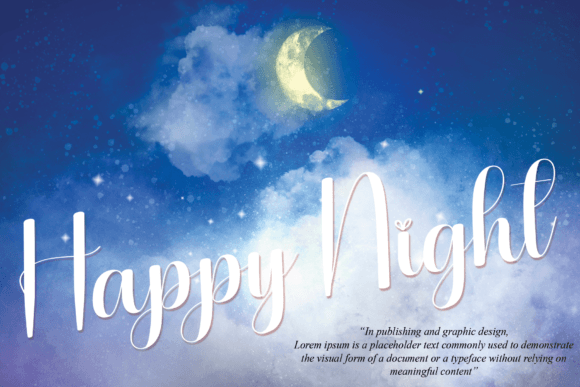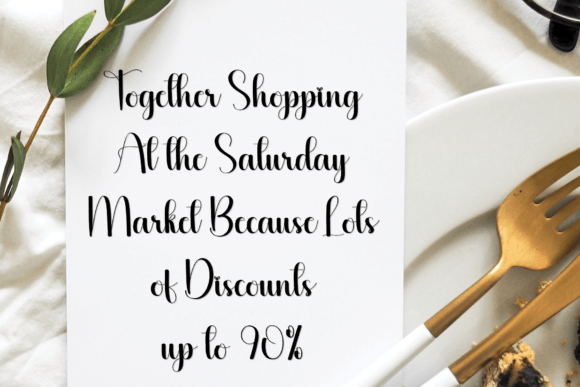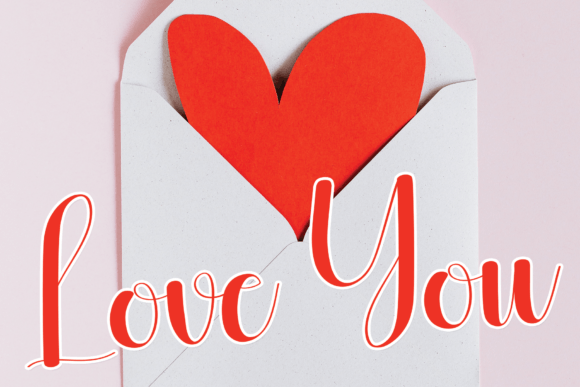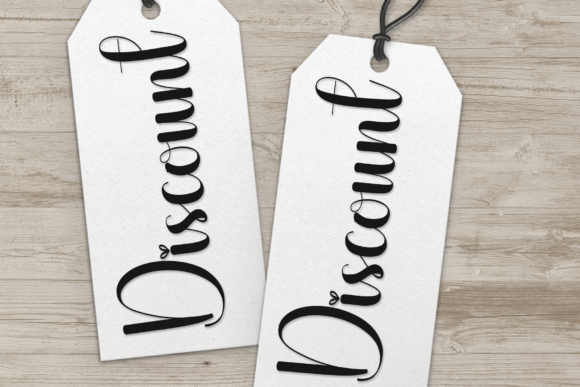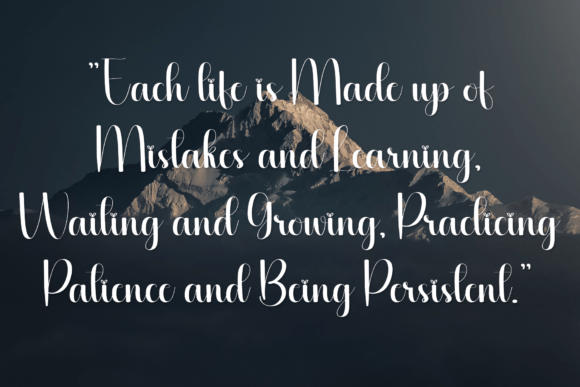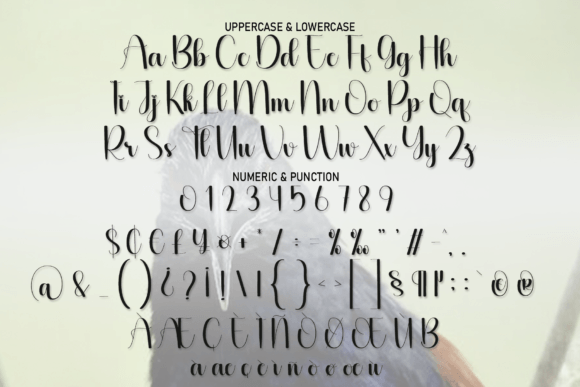
Introducing Angry Font: The Sweet and Cursive Handwritten Font for Elegant Designs
Are you tired of using the same old fonts for your design projects? Look no further! Angry Font is a beautiful, sweet, and cursive handwritten font that will add a touch of elegance and whimsy to your designs. This gentle font is perfect for designers and crafters who want to create stunning visuals that exude joy and romance.
What Makes Angry Font Special?
Angry Font is a versatile font that can be used for a wide range of design ideas. Its cursive and handwritten style gives it a unique and personal touch, making it perfect for projects that require a bit of flair. Whether you’re working on branding, logos, wedding materials, greeting cards, fashion designs, or marketing promotions, Angry Font is sure to impress.
One of the standout features of Angry Font is its ability to convey a sense of elegance and sophistication while still being casual and approachable. This makes it perfect for designers who want to create designs that are both refined and laid-back.
Angry Font is a chameleon of a font that can adapt to a variety of design styles and projects. Here are some ideas for using Angry Font:
• Branding: Use Angry Font to create a unique and memorable brand identity that stands out from the crowd.
• Logos: Create a stunning logo that showcases your brand’s personality and style.
• Wedding Materials: Add a touch of romance and whimsy to your wedding designs, including invitations, programs, and decorations.
• Greeting Cards: Create beautiful and heartfelt greeting cards for special occasions.
• Fashion Designs: Use Angry Font to add a touch of elegance and sophistication to your fashion designs, including lookbooks and marketing materials.
Why Choose Angry Font?
So why choose Angry Font over other fonts? Here are just a few reasons:
• Unique and Personal: Angry Font has a unique and personal touch that sets it apart from other fonts.
• Versatile: Angry Font can be used for a wide range of design projects and styles.
• Elegant and Sophisticated: Angry Font conveys a sense of elegance and sophistication while still being casual and approachable.
• Easy to Read: Angry Font is easy to read and understand, making it perfect for designs that require a clear and concise message.
Tips for Using Angry Font
Here are a few tips for using Angry Font in your designs:
• Pair with Other Fonts: Pair Angry Font with other fonts to create a unique and interesting contrast.
• Experiment with Colors: Experiment with different colors and textures to add depth and interest to your designs.
• Use for Headings and Titles: Use Angry Font for headings and titles to add a touch of elegance and sophistication.
• Keep it Simple: Keep your designs simple and clean to let Angry Font shine.